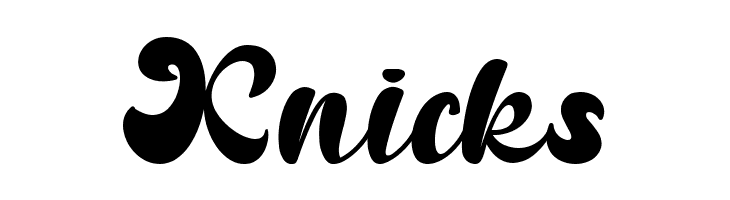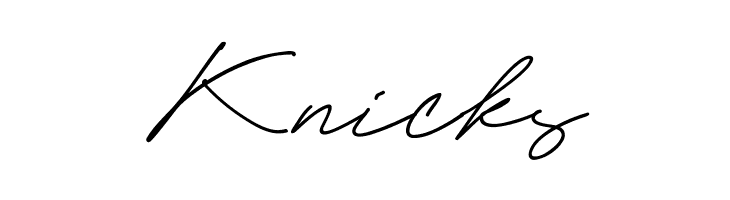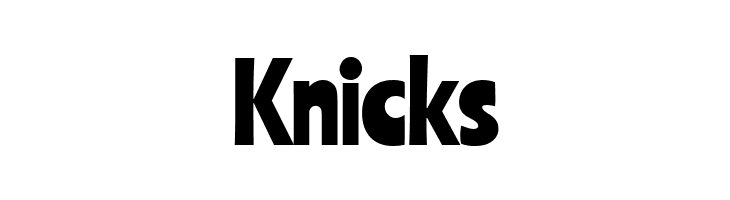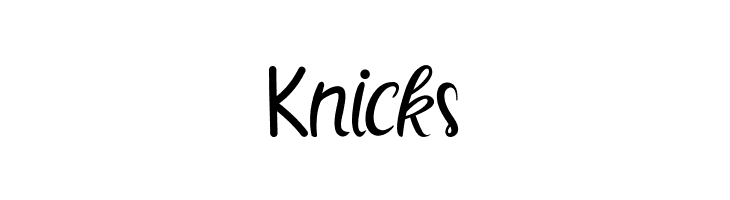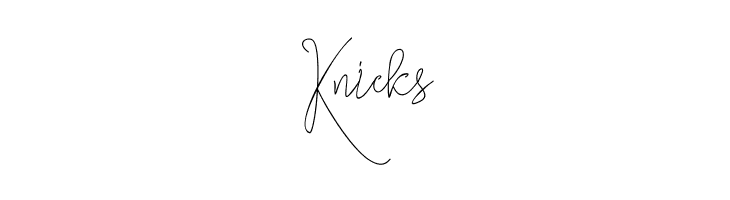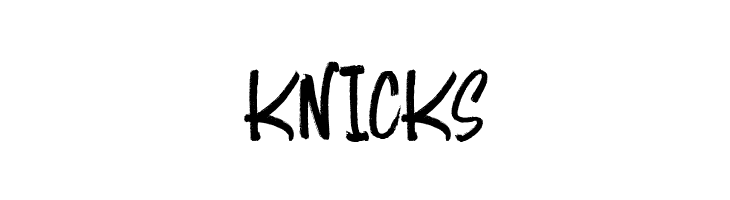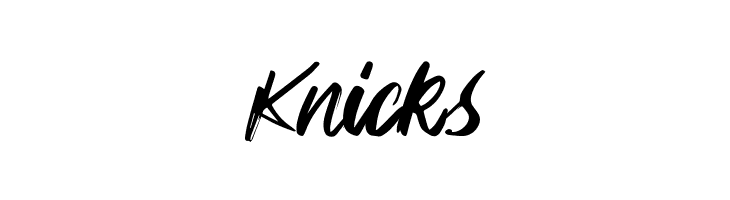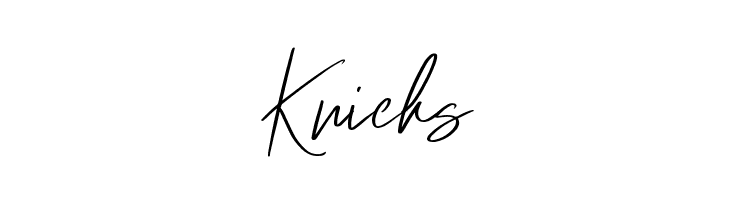
A bold, geometric font with sharp angles and a modern, edgy style.
A graceful script font with fluid, interconnected strokes and elegant loops.
A bold, modern font with strong geometric shapes and sharp edges.
A bold, energetic script font with dynamic strokes and a hand-drawn feel.
A bold, brush-style font with dynamic, energetic strokes.
A monoline, rounded script font with a casual, handwritten style.
A bold, geometric font with a strong, industrial style.
A bold, geometric font with a modern and technical style.
A dynamic and flowing script font with elegant, cursive letterforms.
A bold, textured script font with a brush-like, expressive style.
A modern, rounded sans-serif font with consistent stroke widths and balanced spacing.
A modern cursive font with smooth, flowing strokes and a personal touch.
A playful, handwritten font with a whimsical and approachable style.
A delicate and elegant script font with flowing, intricate letterforms.
A classic, calligraphic font with sharp serifs and a medieval influence.
A graceful, cursive font with a handwritten style and consistent stroke width.
A fluid and elegant script font with a natural handwriting style.
A bold, playful handwritten font with rounded, energetic letterforms.
A tall, narrow font with a modern, professional style, ideal for impactful headlines.
A fluid and elegant script font with a modern yet classic appeal.
A playful, hand-drawn font with a casual and friendly style.
A bold, geometric font with a strong, condensed style.
A bold, robust font with thick strokes and a strong presence.
A bold, elegant script font with sweeping strokes and decorative flourishes.
An elegant script font with flowing, cursive letterforms and a classic style.
A graceful script font with thin, flowing strokes and elegant flourishes.
A playful, handwritten font with smooth, rounded strokes and a casual vibe.
A bold, rounded font with a playful and friendly style.
A futuristic, geometric font with sleek curves and a modern aesthetic.
A bold, playful handwritten font with thick strokes and rounded edges.
A bold, brush-style font with a dynamic, hand-painted look.
A bold, playful font with high contrast and whimsical flourishes.